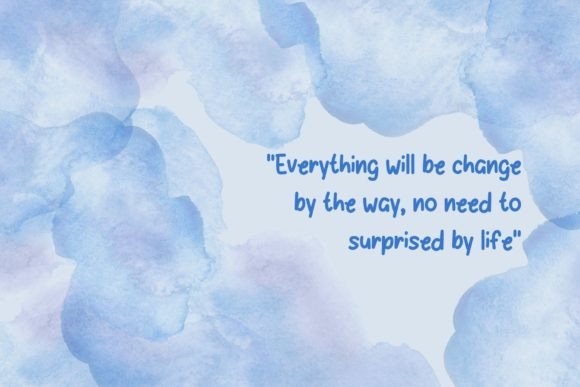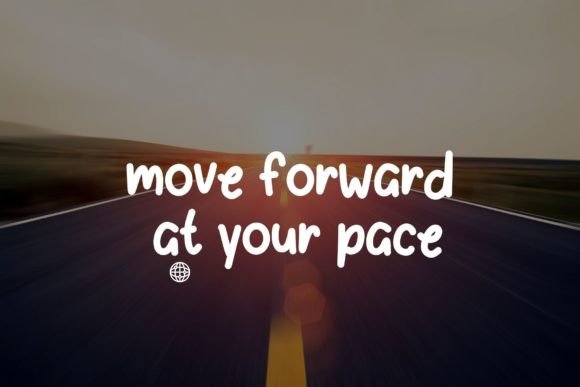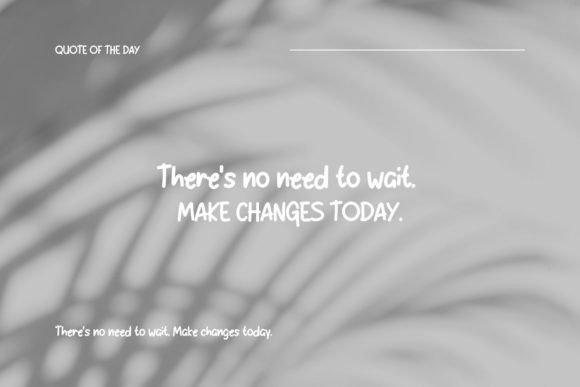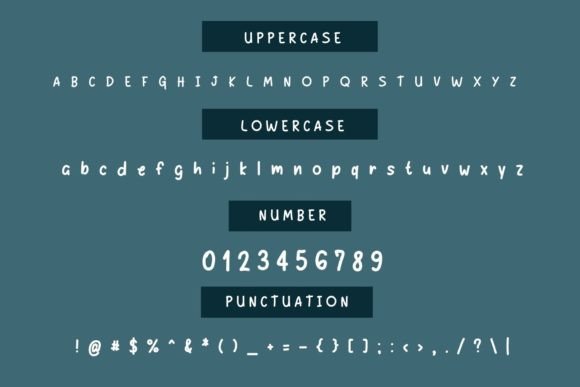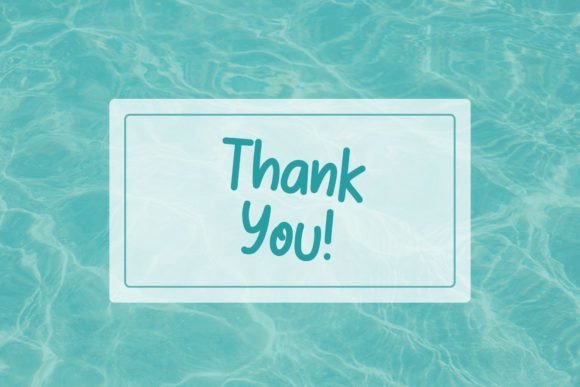
Introduction to Relaxing Font
Relaxing is a cute handwritten font.
It embodies playfulness and authenticity and is the perfect choice for all your favorite projects such as blog posts, logos, branding, ads, invitations, greeting cards, planners, photo albums, decorations, and much more Add it to any of your designs, and enjoy the results.
Key Features of Relaxing Font